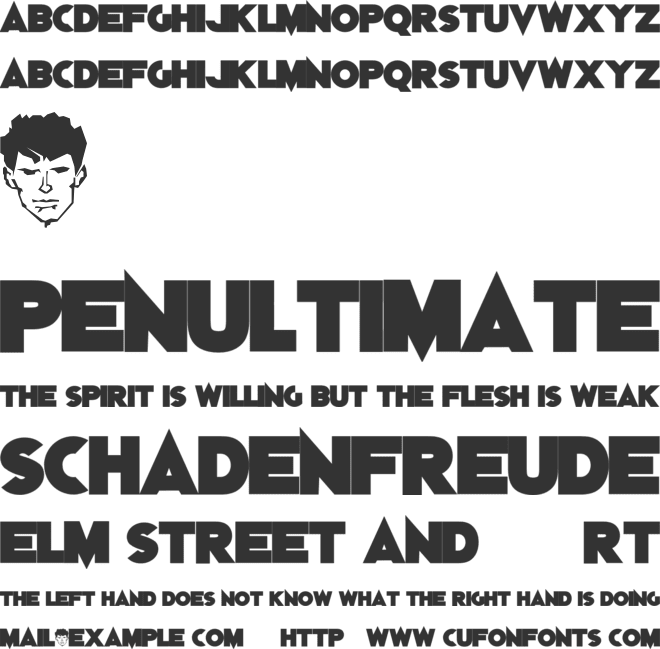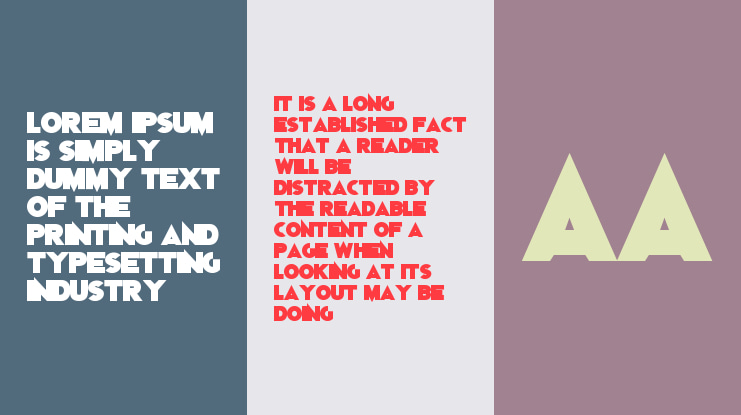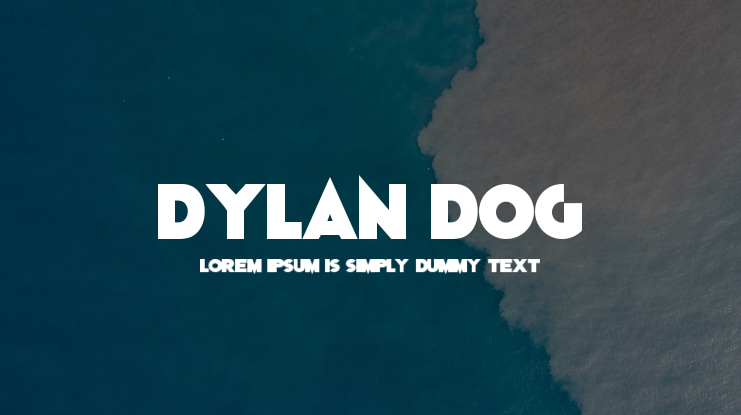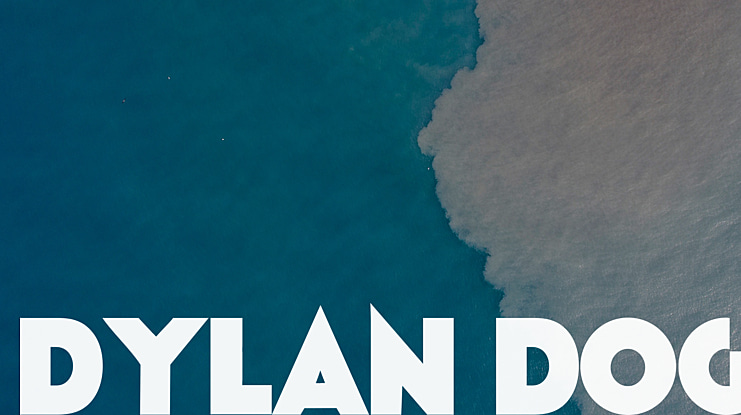
DYLAN DOG Font
P. A. Vannucci
DYLAN DOG font: directly from the Best movie by KEVIN MUNROE, with BRANDON ROUTH, the original font for all lovers. Use ADOBE Photoshop for the original border from title.